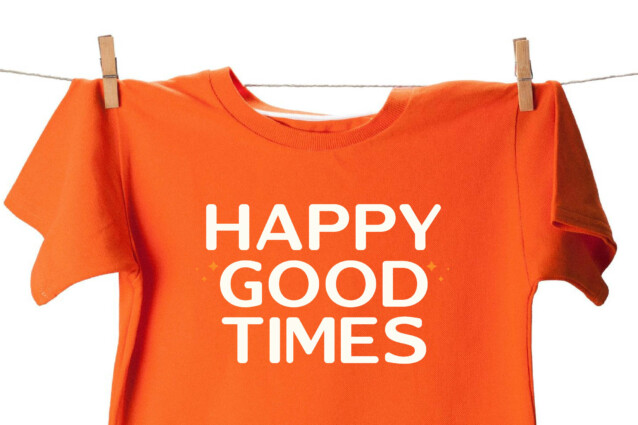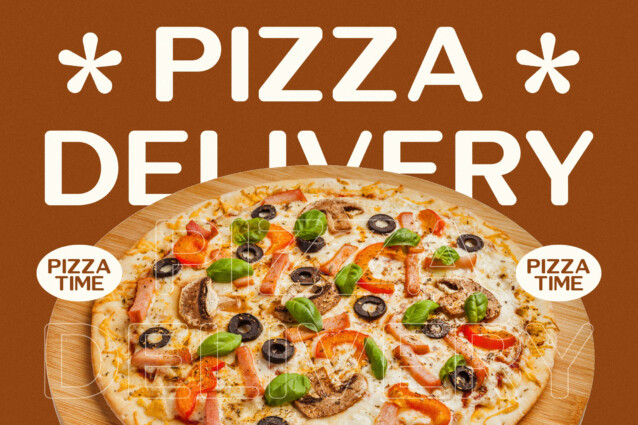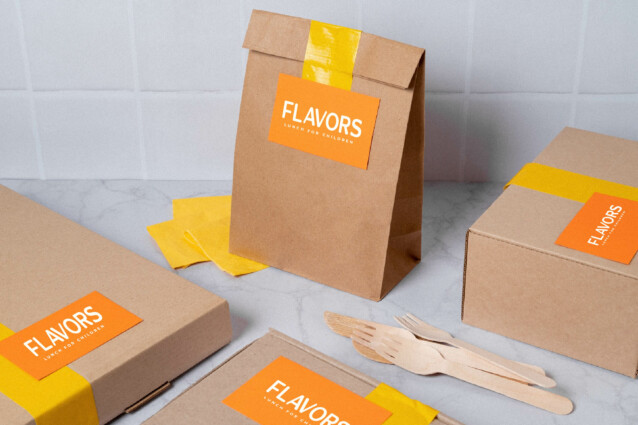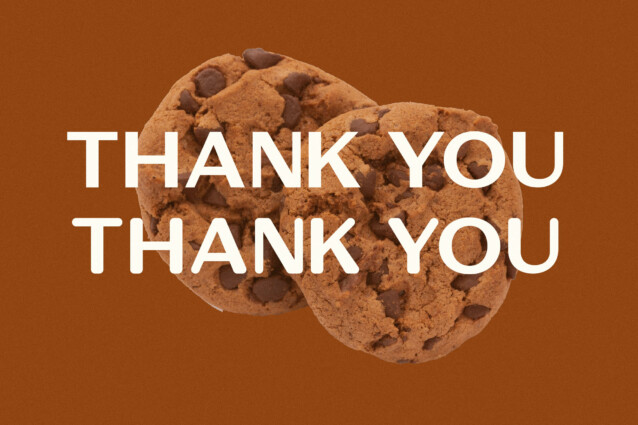
Masters Quest Font
Masters Quest Font is a sans serif modern and classic typeface that has own unique style & modern look. This typeface is perfect for an elegant & luxury logo, book or movie title design, fashion brand, magazine, clothes, lettering, quotes, and so much more.